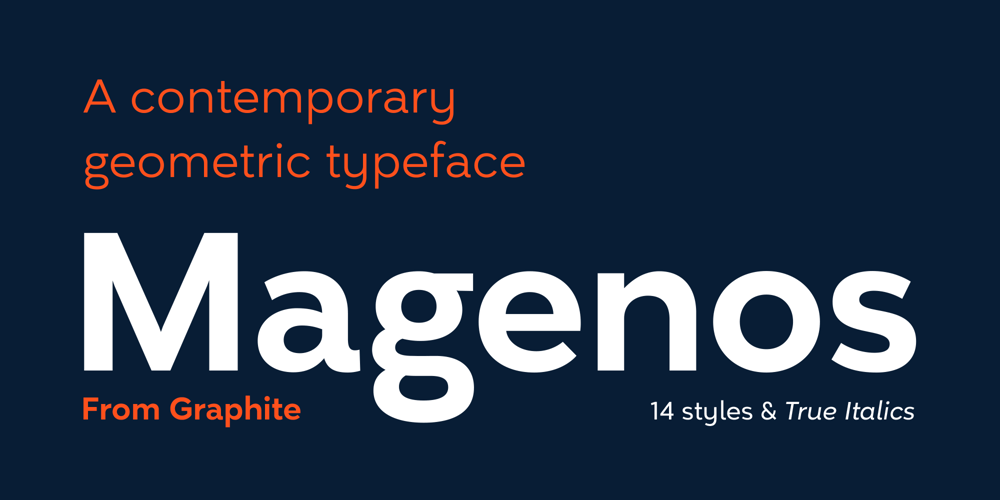
Magenos Font Family was designed by Deepak Dogra and published by Graphite. Magenos contains 14 styles and family package options. Magenos is a modern geometric sans serif family characterized by its simplicity and extensive functionality. With its open apertures, geometric architecture and low contrast strokes, it expresses a sincere tone with a modernistic, neutral, yet friendly personality. It has been designed to work well for a wide range of applications and is a reliable workhorse. Equally suitable for print and screen usage, it works well for both text and display at a wide range of point sizes. The addition of true italics gives the whole family a dynamic edge and flexibility. Magenos comes with many OpenType features including stylistic alternates, standard ligatures, oldstyle and lining (proportional and tabular) numerals, slashed zero and a variety of symbols, making it a perfect choice for contemporary and professional typography.